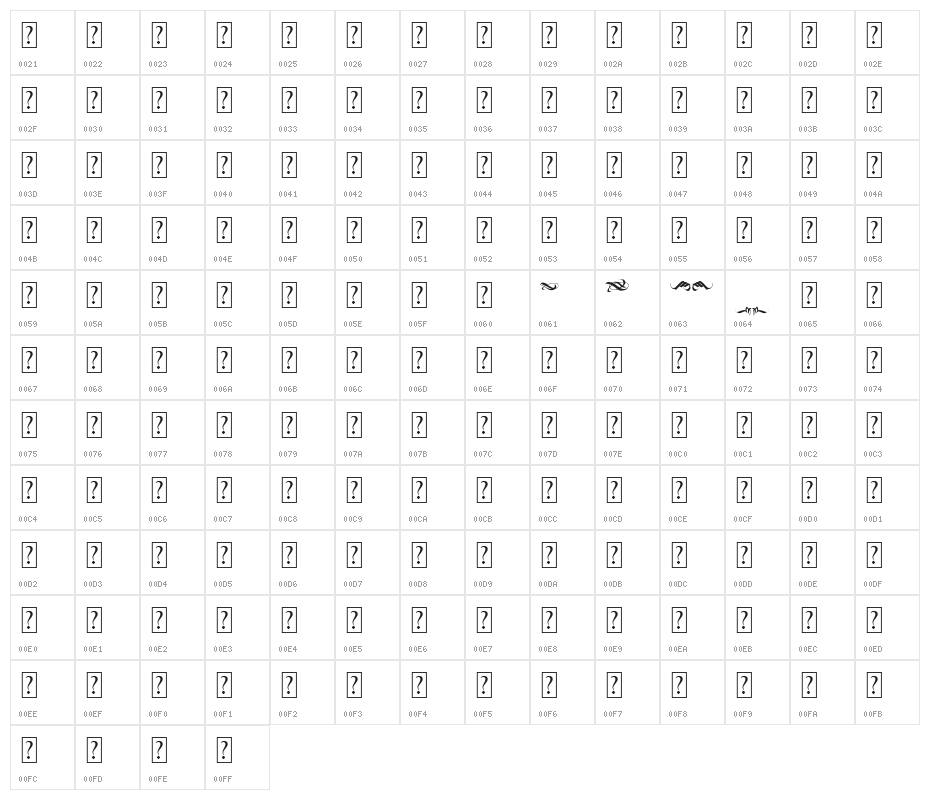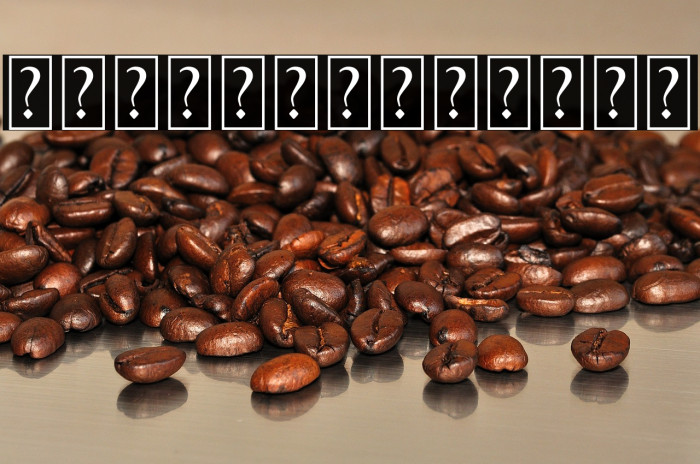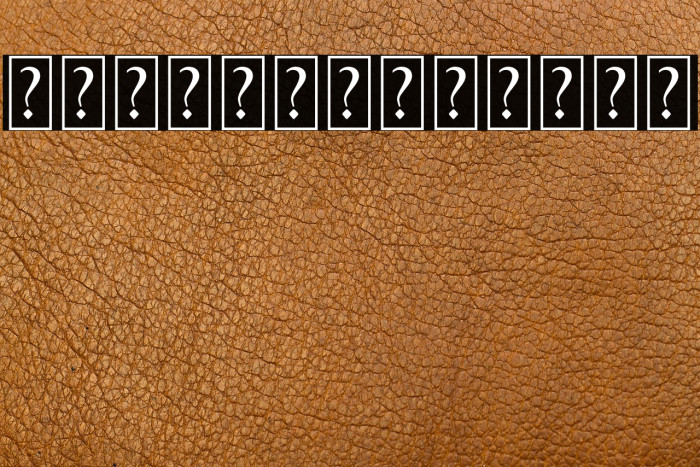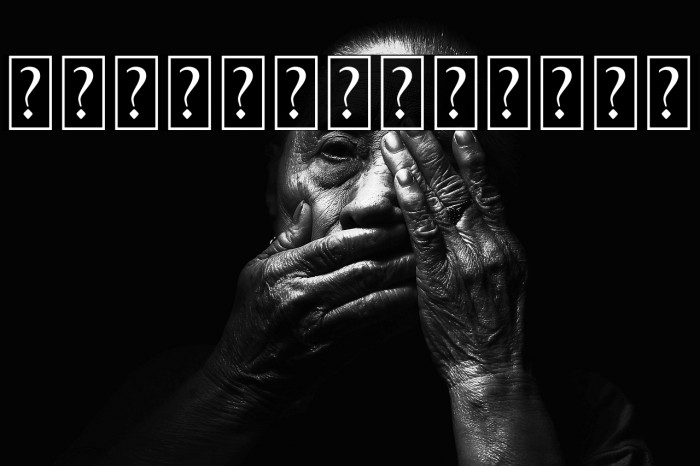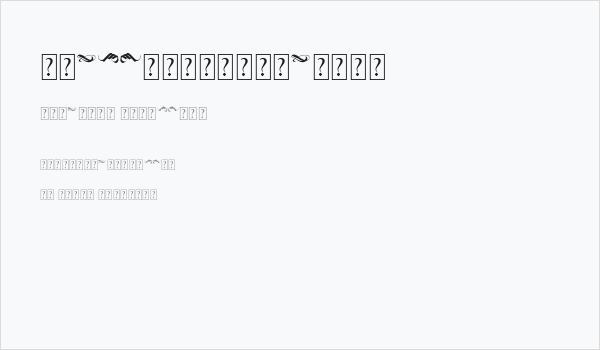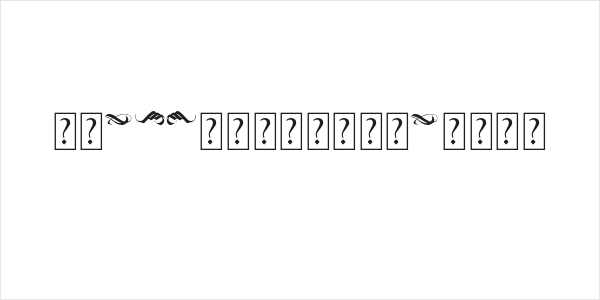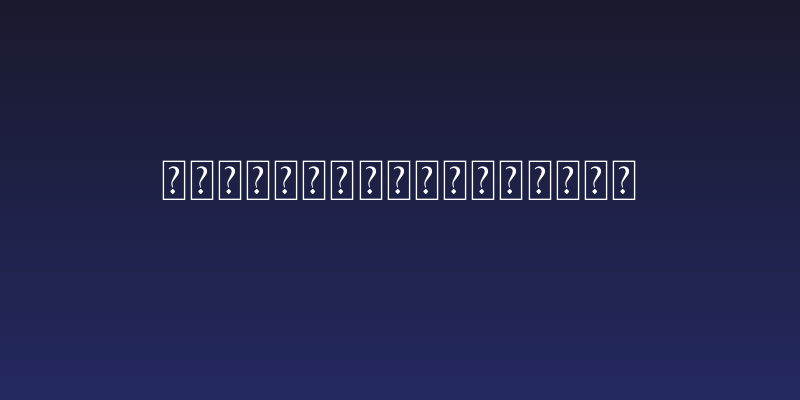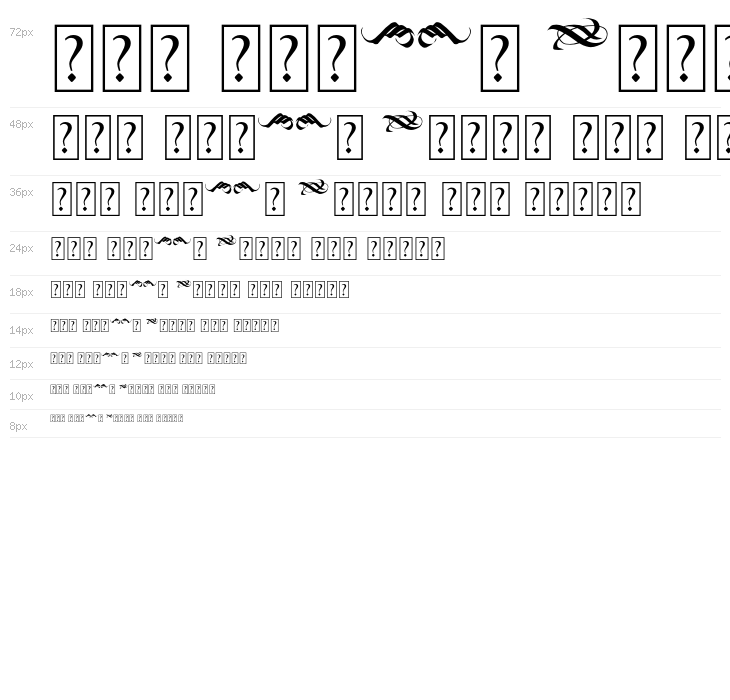
BlackWineOrnament Font
BlackWineOrnament Description
This is not a valid font. The image consists of ornamental elements and placeholders, lacking any recognizable alphabetic or numeric characters. It appears to be a decorative set rather than a functional typeface. The design includes intricate swirls and flourishes, which might be used as embellishments or decorative accents in graphic design projects. However, it does not provide a complete set of characters necessary for typical font usage.
| Font Family | Black Wine Ornament |
| Use Case | Decorative elements, Borders, Invitations |
| Proposed Projects | Use for decorative borders, embellishments in invitations, or artistic design elements. |